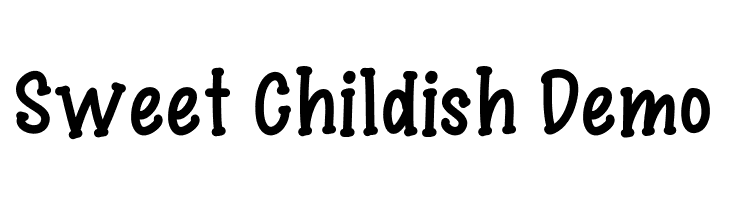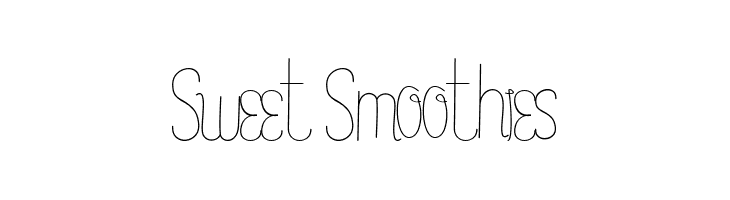
A playful, hand-drawn font with bold, rounded characters and a whimsical style.
A bold, flowing script font with interconnected characters and strong visual impact.
A playful and elegant script font with a modern, handwritten style.
A playful, bold font with rounded, thick strokes and a whimsical flair.
A bold, playful font with rounded, whimsical characters and subtle cutouts.
A playful and elegant script font with a handwritten style.
A playful handwritten font with smooth curves and a casual style.
A whimsical, playful script font with a handwritten style.
A playful and whimsical script font with flowing, cursive letterforms.